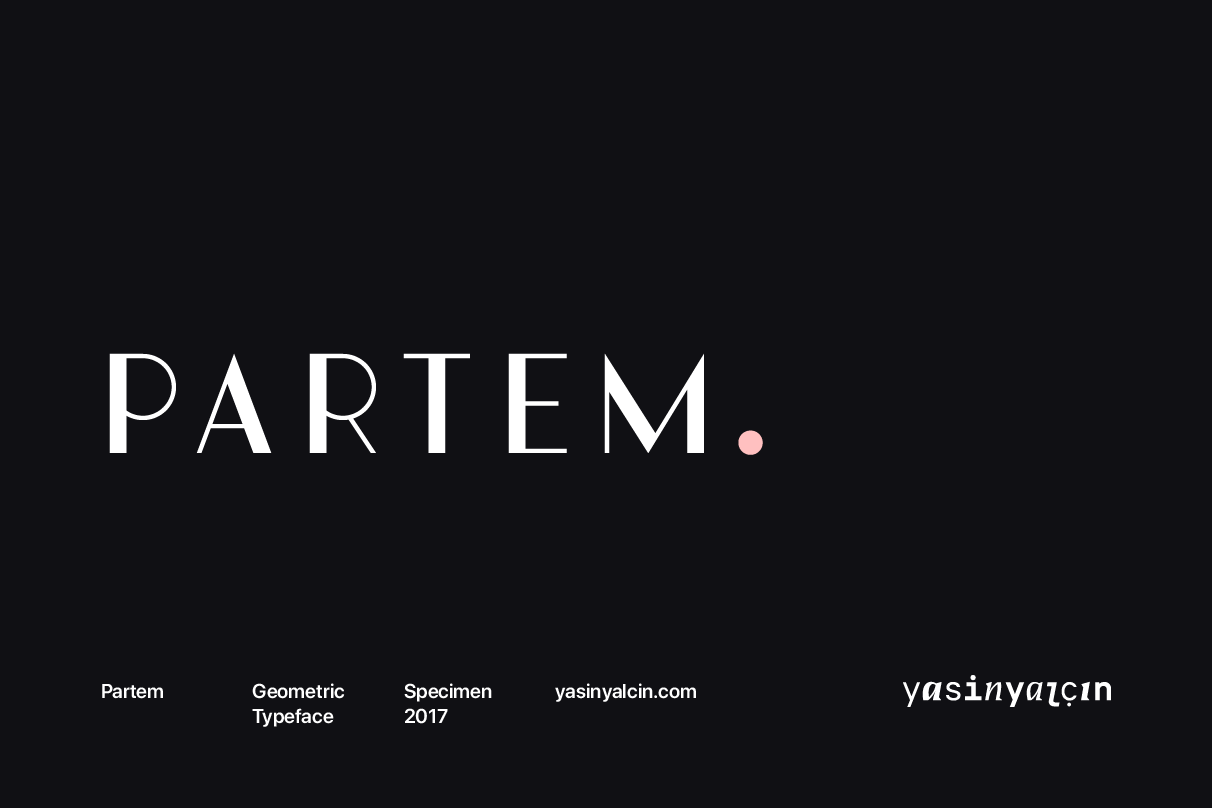
Partem Typeface
Partem is a versatile, elegant, geometric and multilingual display typeface. It is modern yet stylish which is great for display purpose such as logotype, poster, product packaging and headline as well. It features uppercase letters, numbers and punctuation.
Contains two styles:
- Partem Regular
- Partem Outline